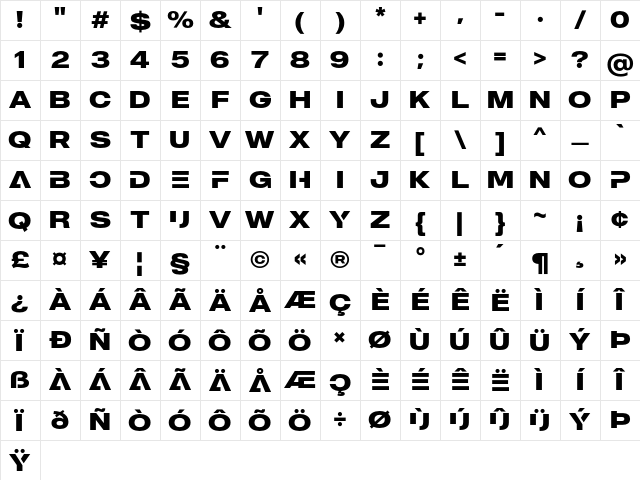
Complete MADE Outer Sans Alt Bold glyph index. Displaying only characters natively supported by MADE Outer Sans Alt Bold font.
MADE Outer Sans Alt is a composed and adaptable typeface that performs quietly and consistently across a wide range of design contexts. Its bold stroke weight gives it real presence on the page.